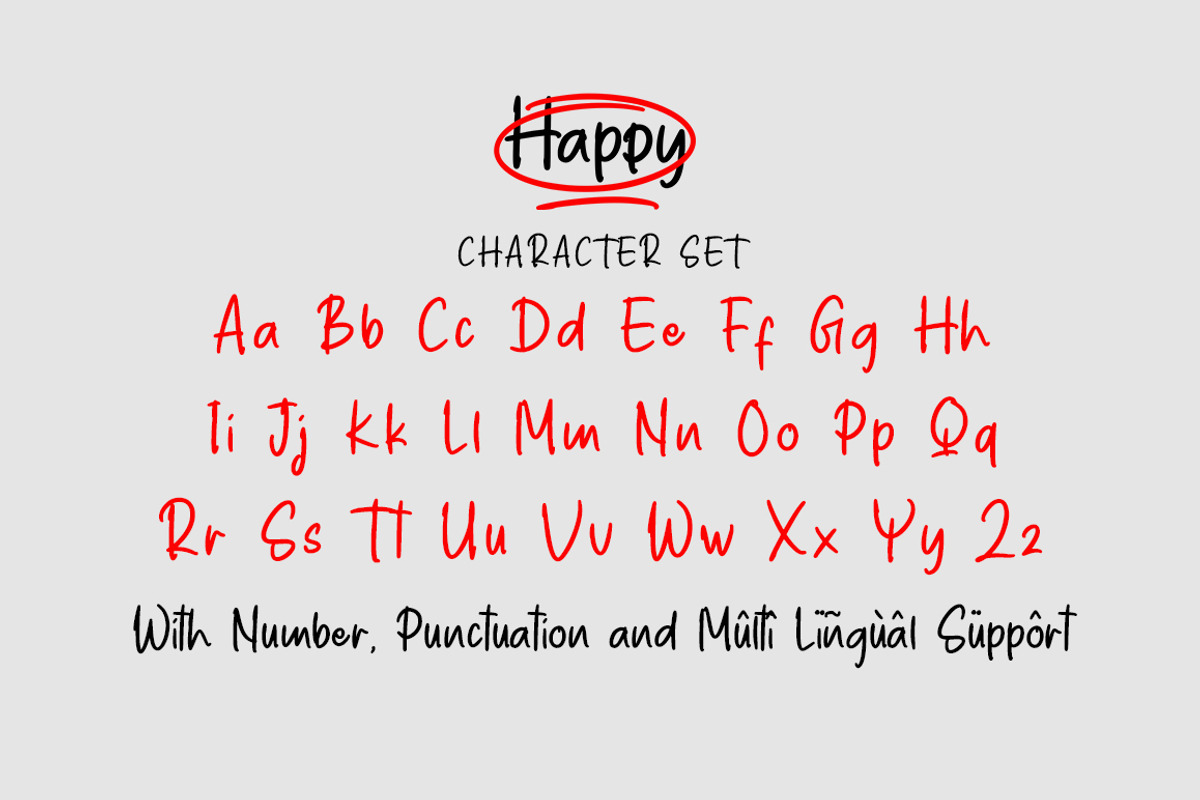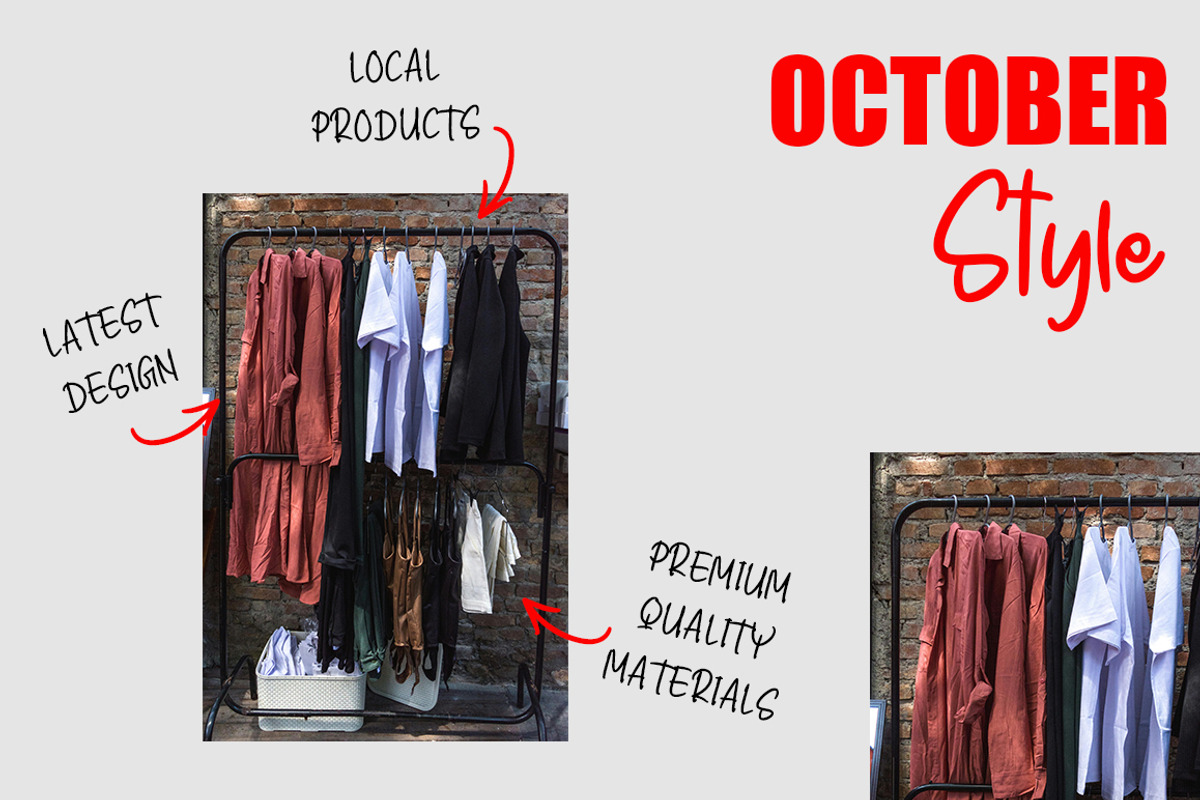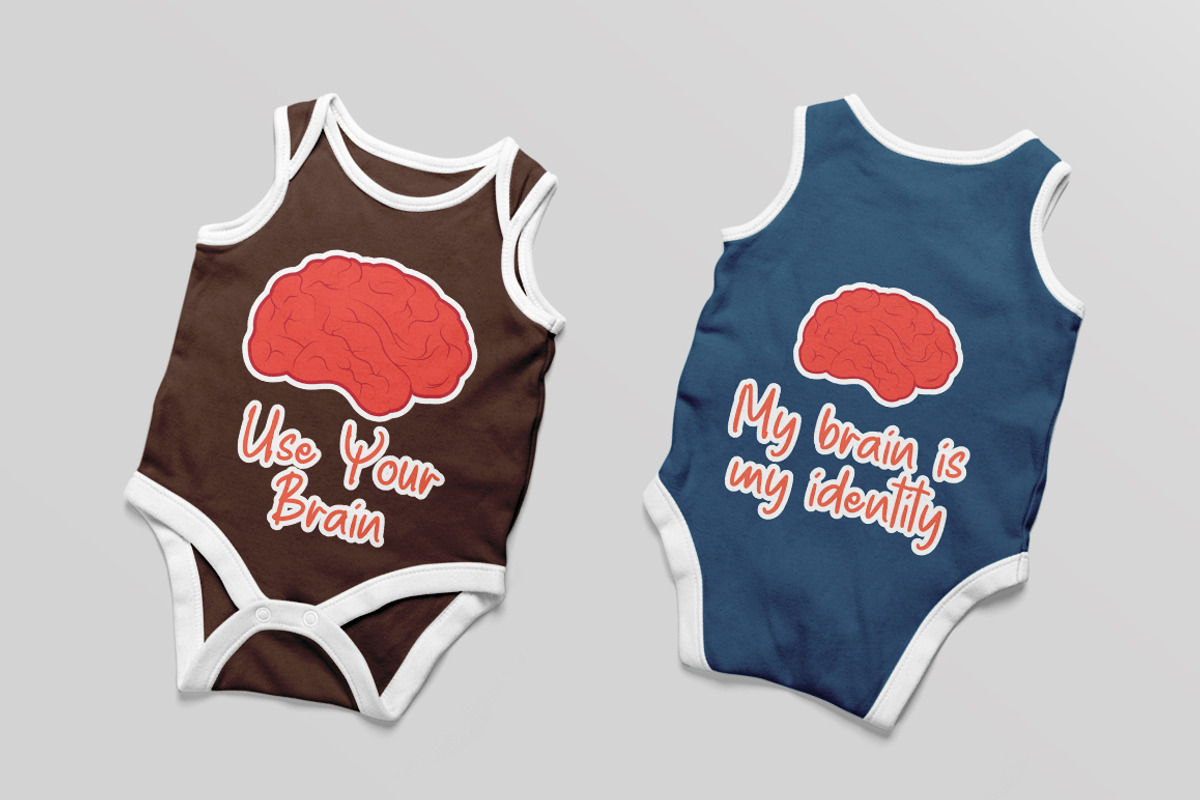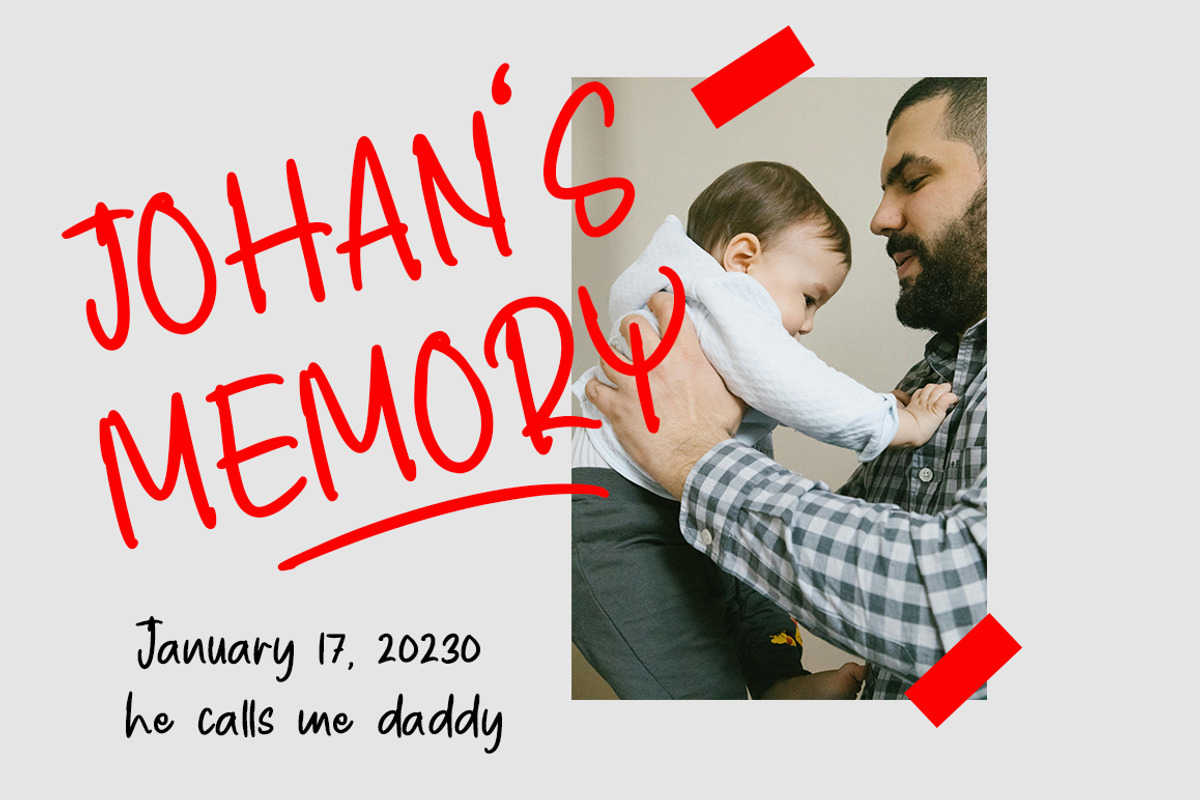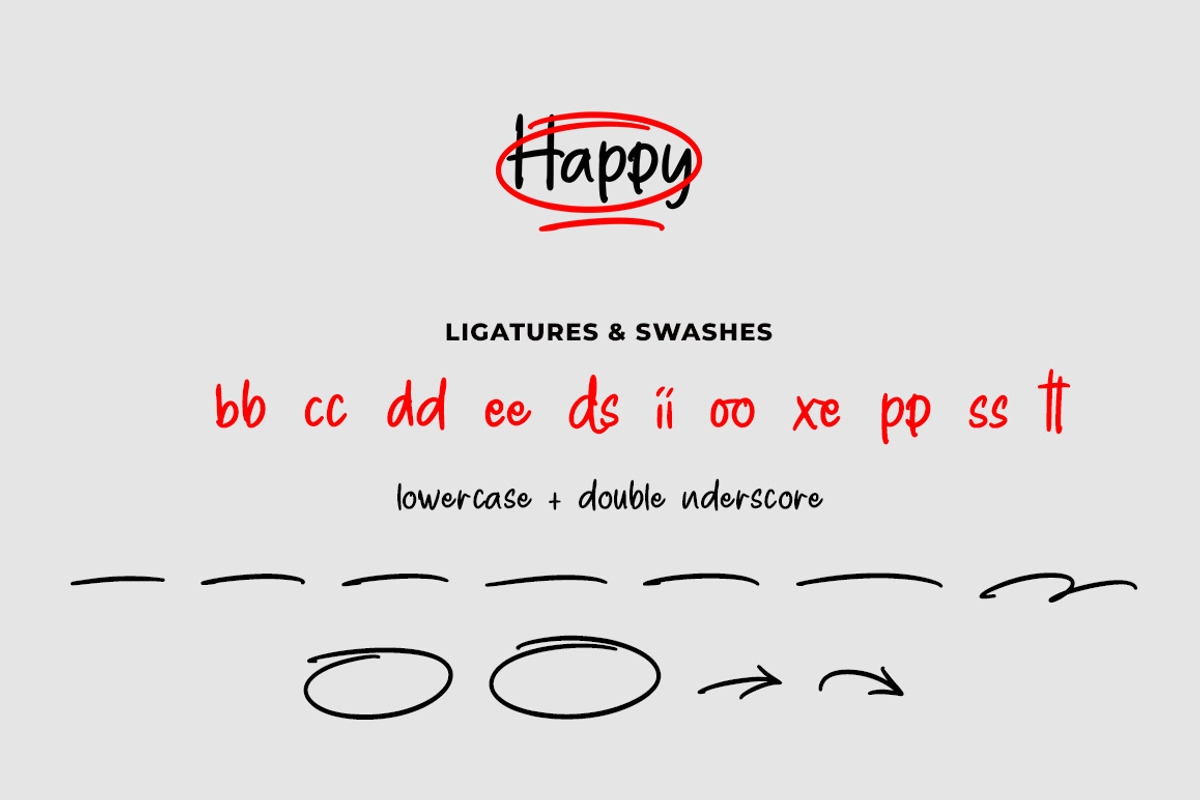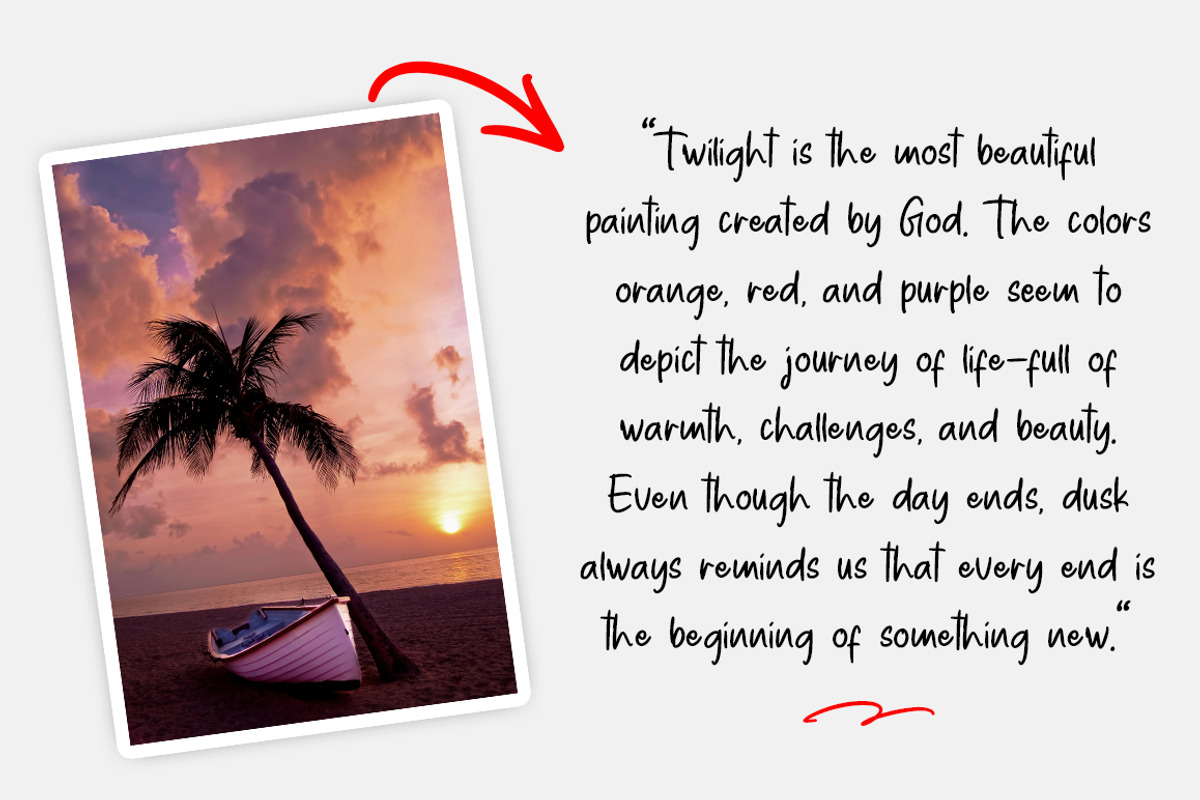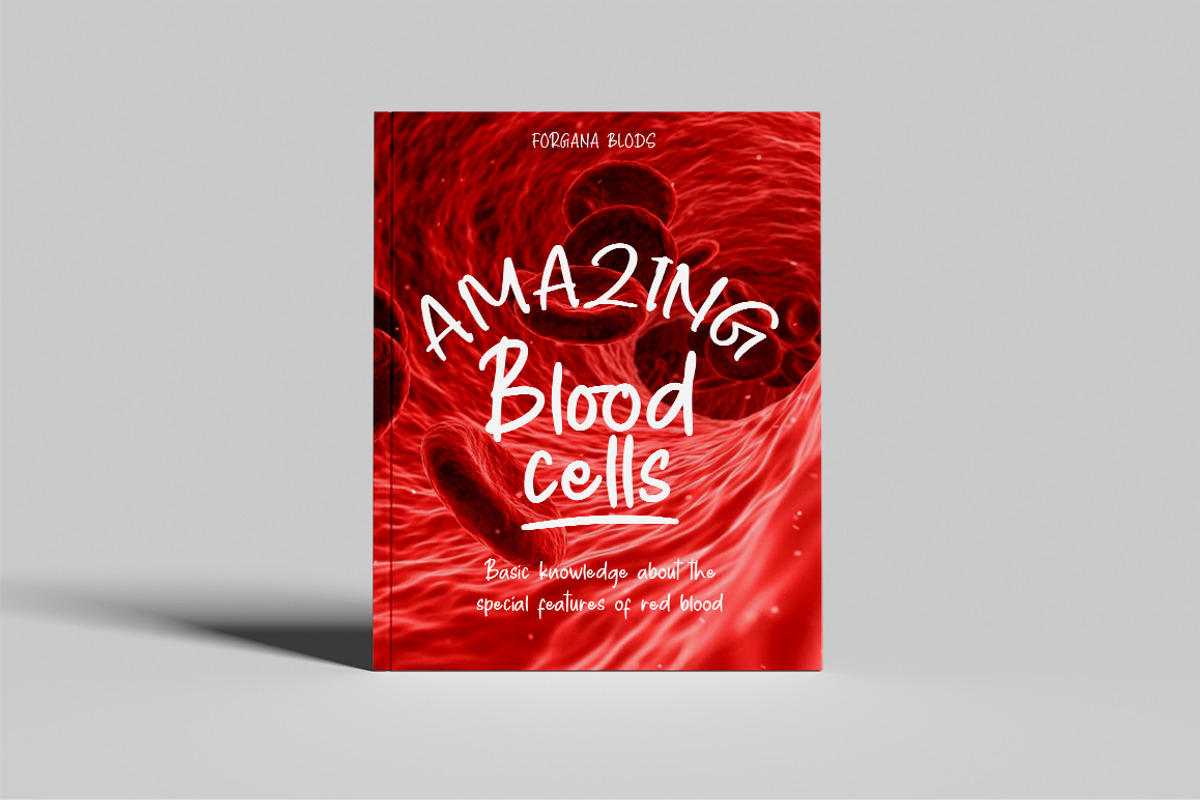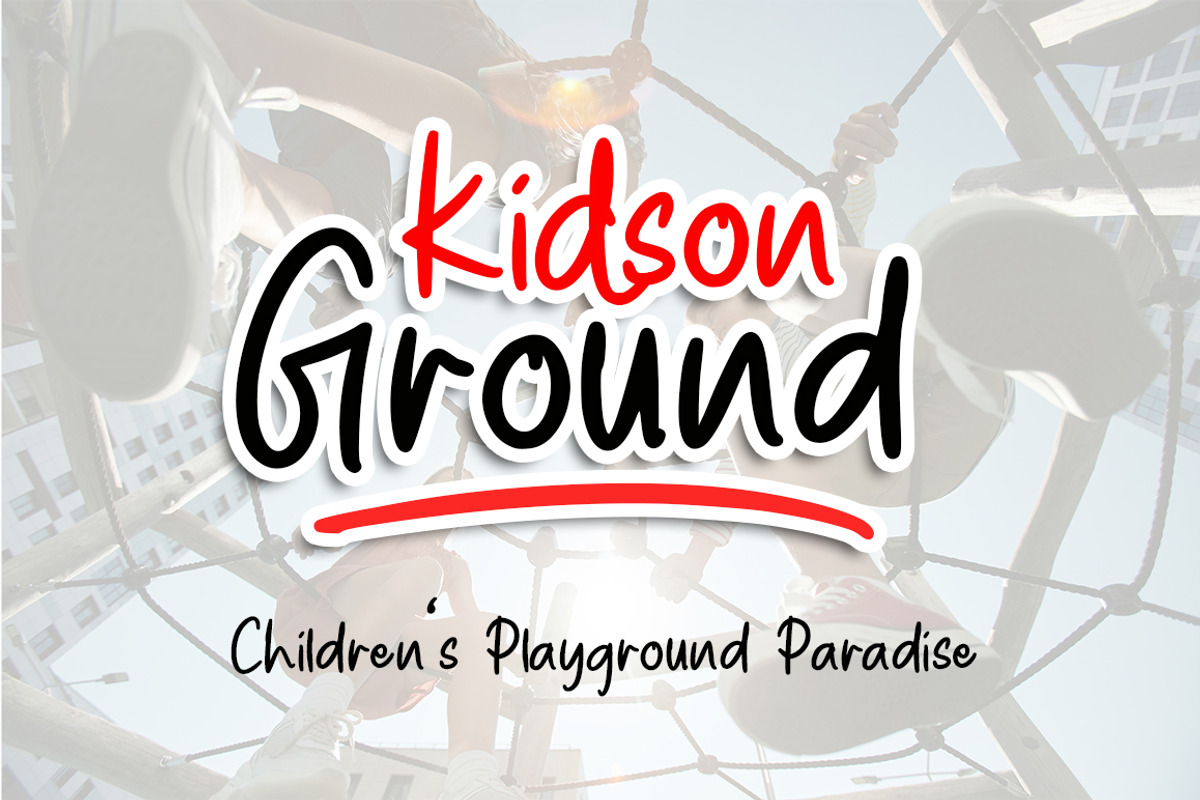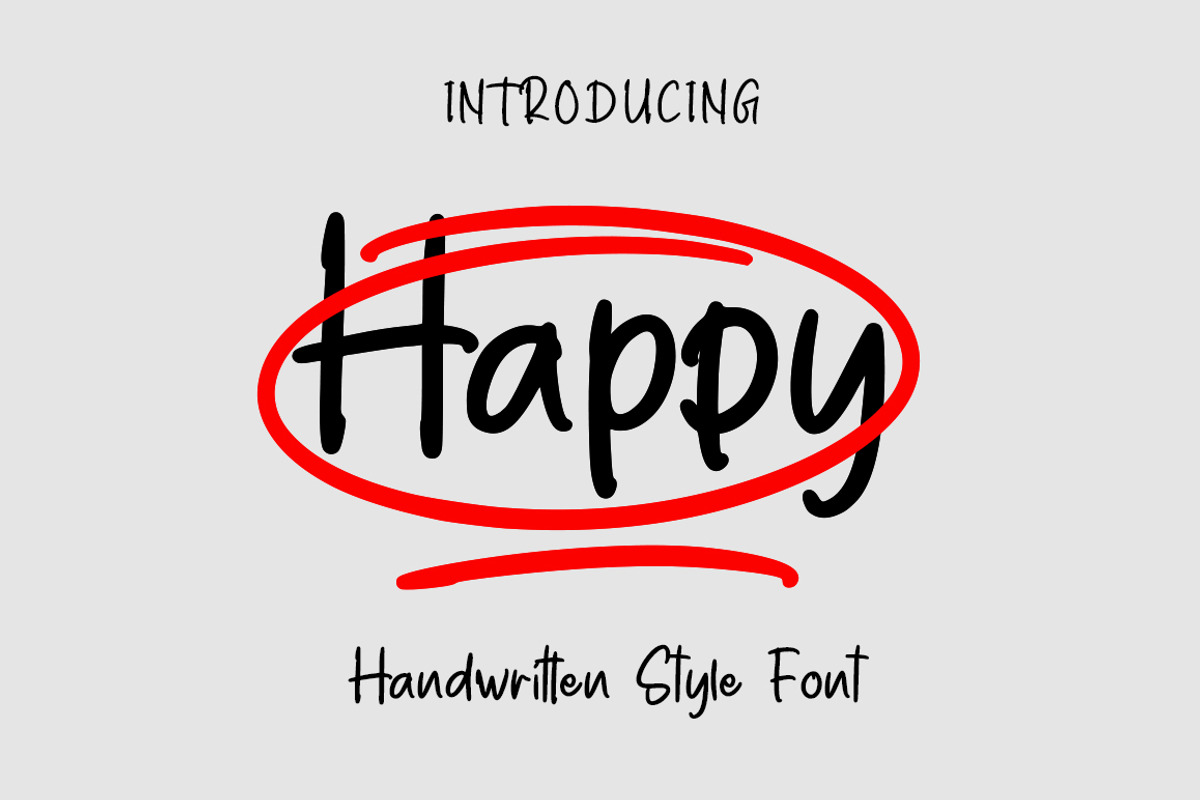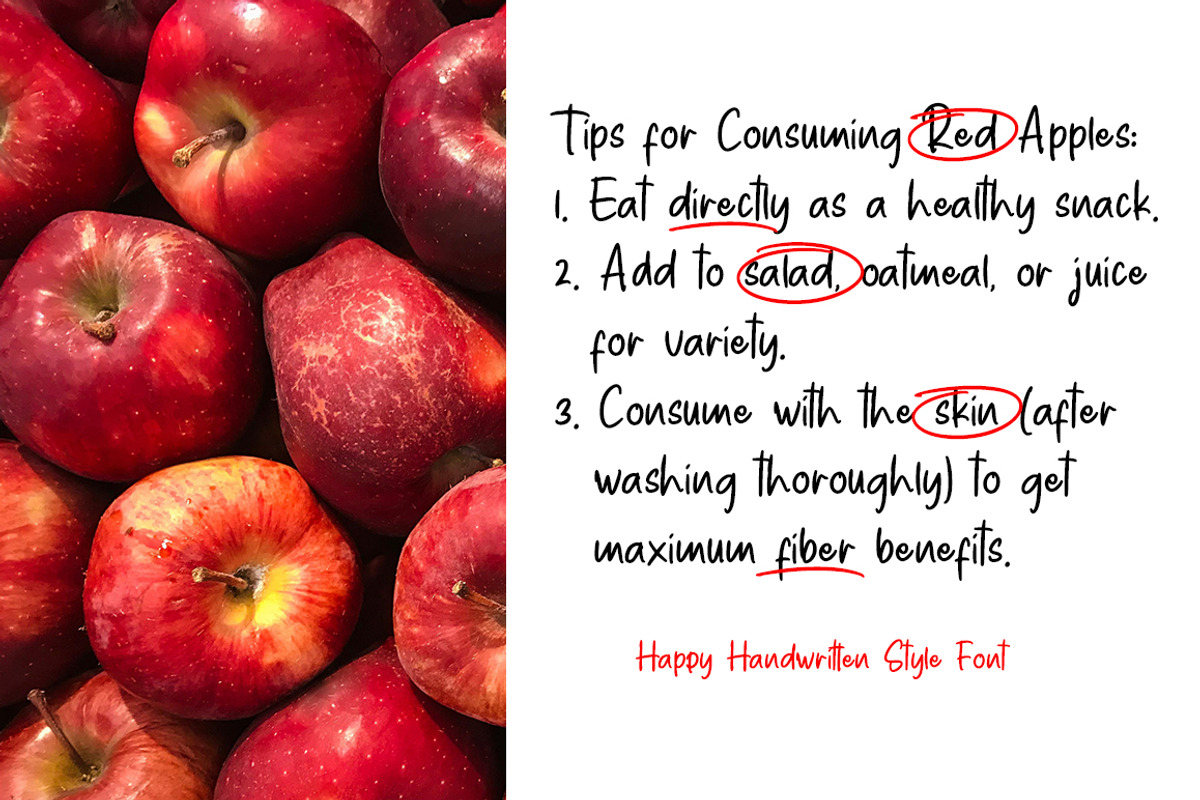
Happy
Happy is an elegant script with a creative mood and perfect form, inspired by today's beautiful calligraphy. thick, balanced and varied, born for luxury and beauty.
In my example I show how this script can be used. It's great for logotypes, branding, wedding invitations, romantic cards, alcohol labels, packaging, name spelling and more.
Happy comes with beautiful uppercase and lowercase letters, numbers, and punctuation. In addition to the main character set, there are many alternative characters, early and late sweeps. You also get 4 font variations regular, outline, italic, distort which harmoniously complement the original text.